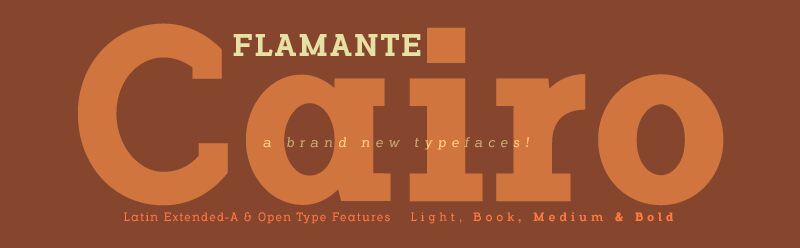
Flamante Cairo is a family of 8 typographies with thick square serifs of the slab type, also known by the Egyptians, which are released with four weights: Light, Book, Medium and Bold and their corresponding italic versions. They include the Bitcoin symbol (Ligatures: b#)
Flamante Cairo is a new family of Slab Serif fonts with four weights: Light, Book, Medium and Bold and their corresponding italic versions. Swiss-style fonts built on a 4 × 6 building grid formed with 144 x 119 units, two digits taken from the fibonacci and Perrin sequences, these measures define the width and height of the vertical and horizontal antlers and the overall proportion of the font. The metrics and kerning have been carefully set up for fluent reading in paragraph texts.